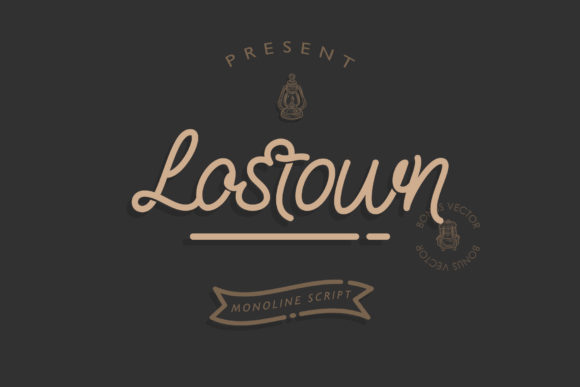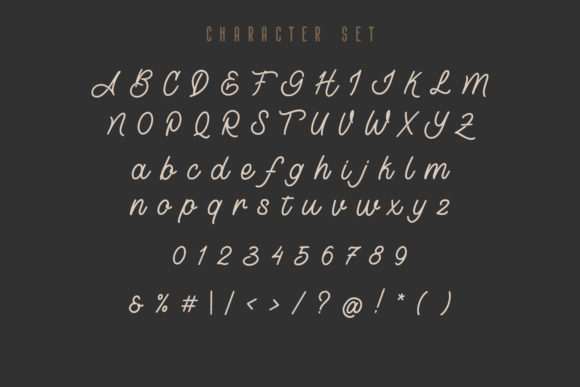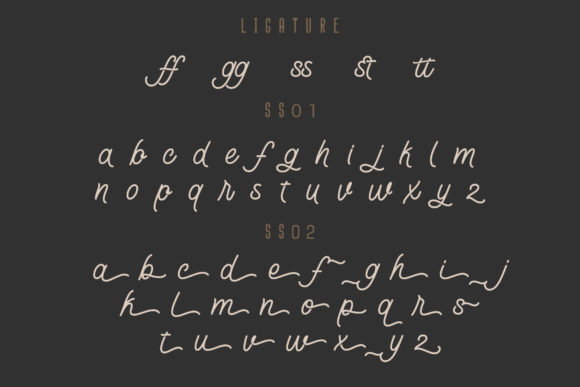
Introduction to Lostown Font
Have you ever found yourself in a creative rut, staring at a blank canvas or screen, waiting for the perfect font to bring your idea to life? For designers, the right font can be the difference between a mediocre project and a masterpiece. That’s where the Lostown Font comes in – a stunning, high-quality handwritten font that’s sure to elevate any design.
With its beautiful, well-balanced characters and varying baseline, the Lostown Font is a versatile design resource that can be used in a wide range of creative projects. Whether you’re working on a brochure, social media campaign, or even a free download for a blog, this font is sure to add a touch of sophistication and style.
One of the standout features of the Lostown Font is its gorgeous glyphs and stunning alternates, which can be used to add an extra layer of depth and interest to your design. Plus, with a transparent background, you can easily layer this font over any image or background, giving you complete creative control.
Key Features of Lostown Font
- High-quality design resource ideal for creative projects, offering a unique and stylish look.
- Transparent background allows for seamless integration with any design or background.
- Designed with a modern and minimalist aesthetic, making it perfect for various design applications.
- Supports a range of languages, including Latin, making it a versatile design resource.
- Unique characteristics include a clean and elegant design, with subtle nuances that add depth and visual interest.
Honest Review: Lostown Font
As a designer, I’ve had the chance to work with a variety of fonts, and the Lostown Font is definitely one that caught my attention. This high-quality font is a fantastic design resource for anyone looking to add a unique touch to their creative project.
One of the standout features of the Lostown Font is its versatility. It’s available for free download, which is a huge plus for designers on a budget. Additionally, the font has a transparent background, making it easy to use in any design setting.
Here are some of the things that work well with the Lostown Font:
- ✨ Unique and creative design: The Lostown Font has a distinct look that sets it apart from other fonts on the market.
- ✨ High-quality glyphs: The font’s glyphs are crisp and clear, making it perfect for use in a variety of design contexts.
- ✨ Versatile: The Lostown Font can be used for a wide range of creative projects, from logos to marketing materials.
- ⚠️ Limited character set: The Lostown Font only includes a limited character set, which may not be suitable for all design projects.
- ⚠️ Not ideal for body text: The font’s unique design may not be the best choice for body text, as it can be difficult to read.
Overall, the Lostown Font is a great addition to any designer’s toolkit. While it may have some limitations, its unique design and high-quality glyphs make it a valuable resource for creative projects.
Introduction to Lostown Font
The Lostown Font is a high-quality design resource that can be used for various creative projects. It’s available for free download and comes with a transparent background, making it versatile for different design needs.
Tips for Getting the Most Out of Lostown Font
Some tips for getting the most out of the Lostown Font include using it in conjunction with other design elements, experimenting with different font sizes and colors, and using it for a variety of creative projects.
Common Use Cases for Lostown Font
The Lostown Font is commonly used for various creative projects, including graphic design, digital art, and typography. It’s also a popular choice for branding and marketing materials.